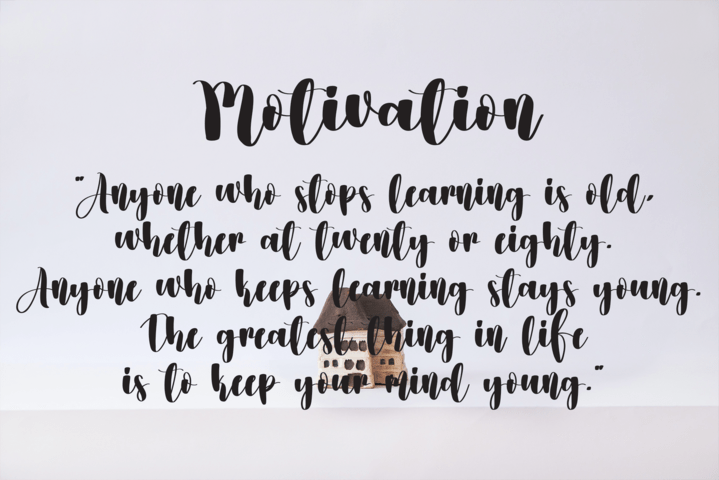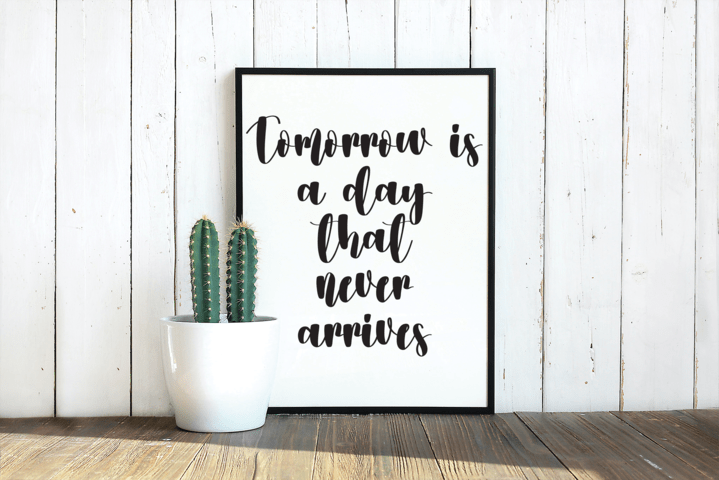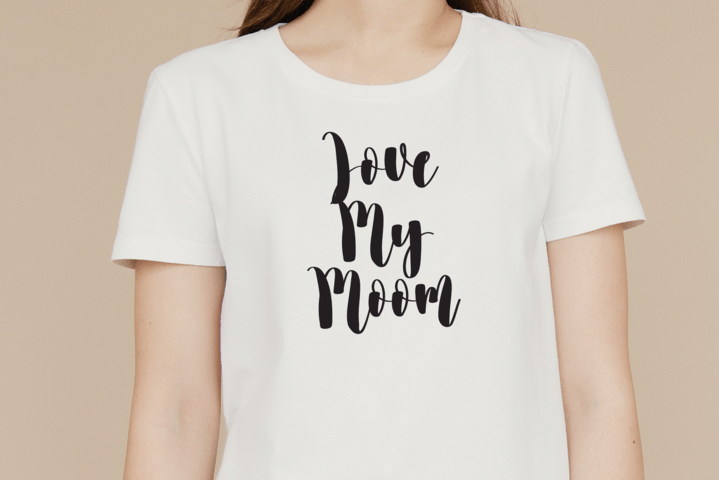
Videography Font
Videography Script Font
It’s a script handmade creative font. We already can picture this gorgeous font on t-shirt designs, wall art, clothes, branding, fashion, magazines, quotes, product design, and much more! What will you make?